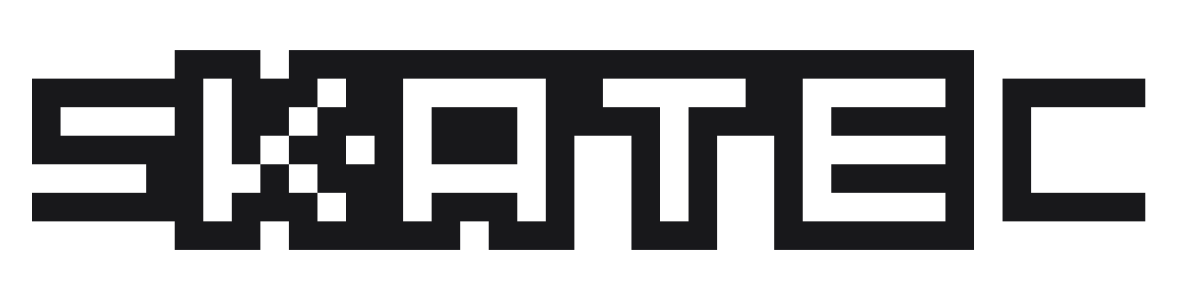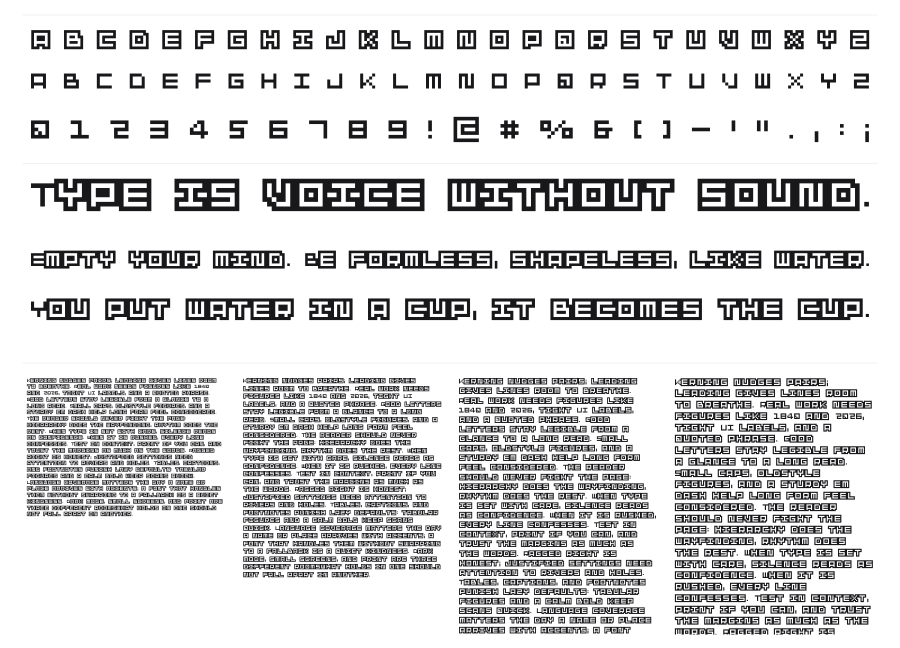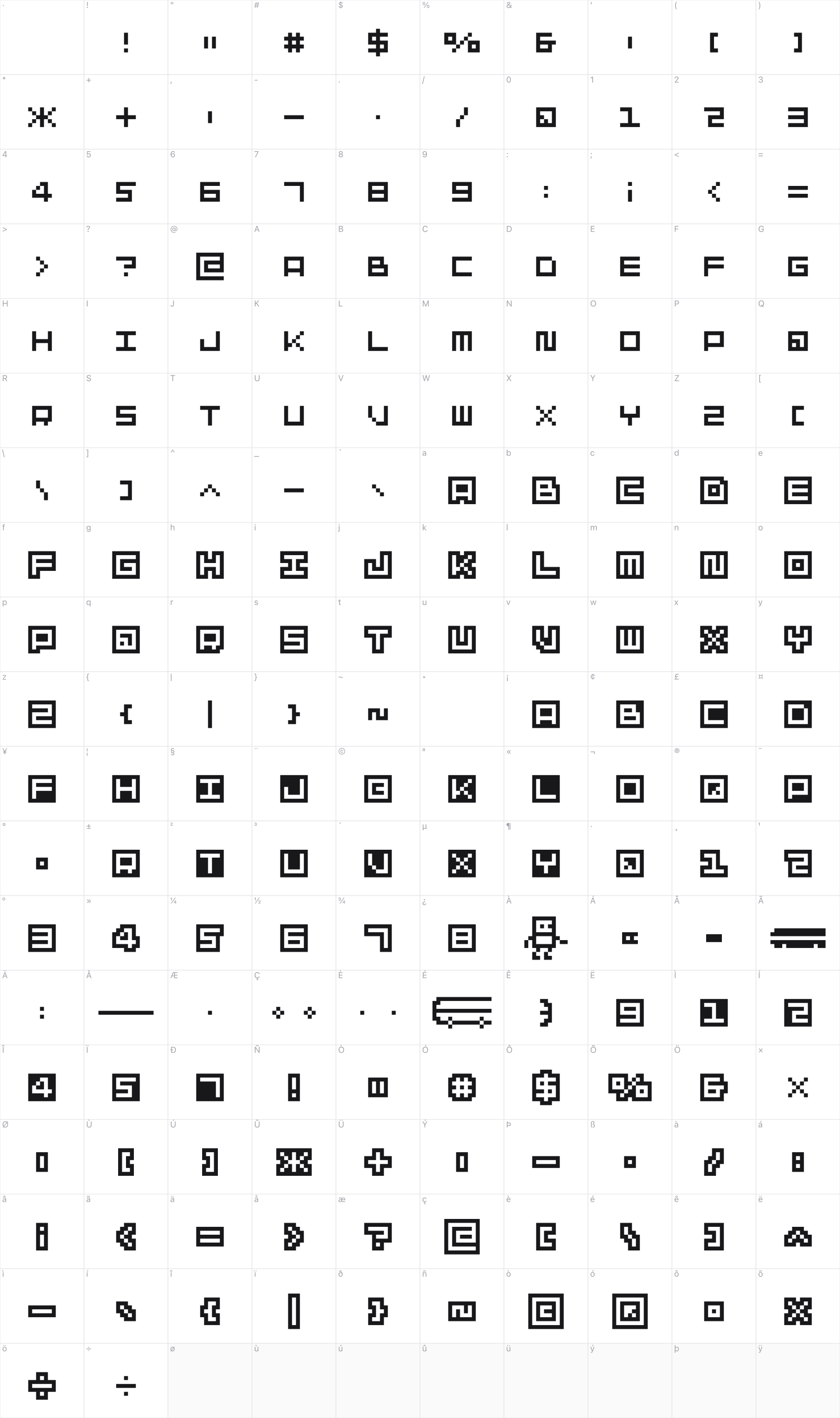
SkateC
SkateC is a heavy square-grid display font built on a rigid modular tile system, giving every character a blocky, arcade-era presence. The extreme weight and uniform stroke construction recall classic video game lettering and skate graphics from the 1980s. It hits hard at large sizes in logos, posters, and anything that needs an urban or underground edge.